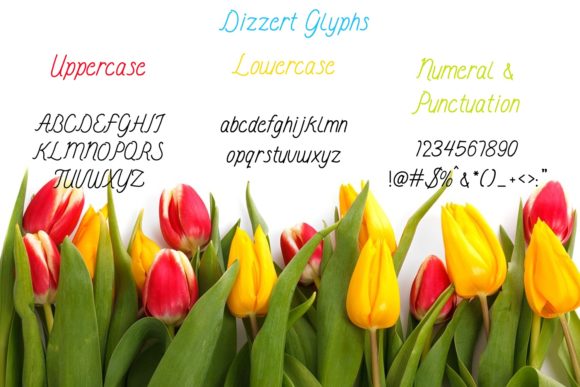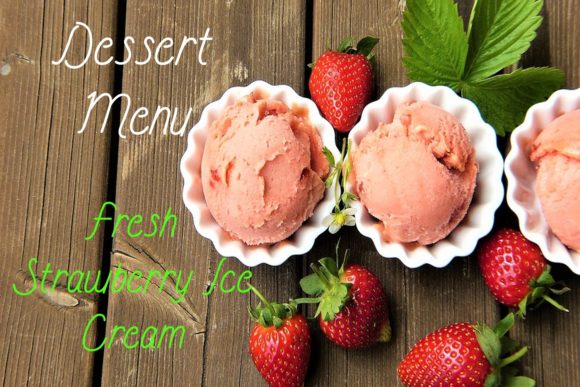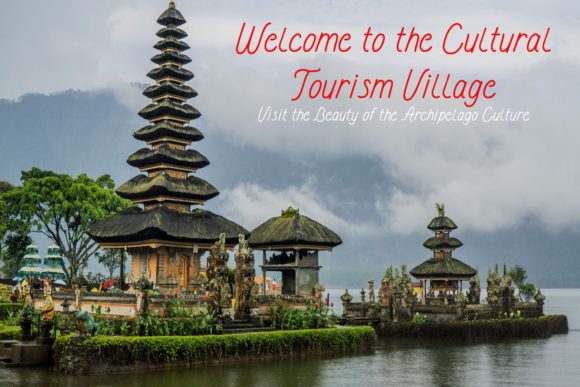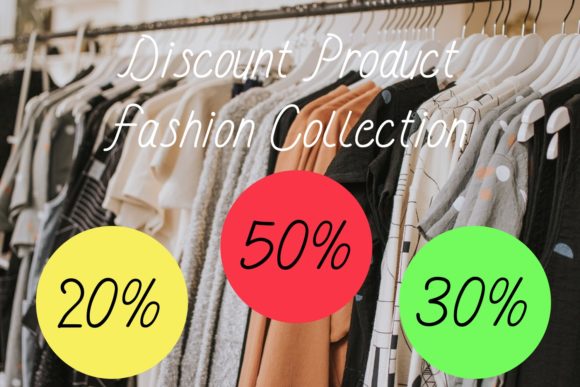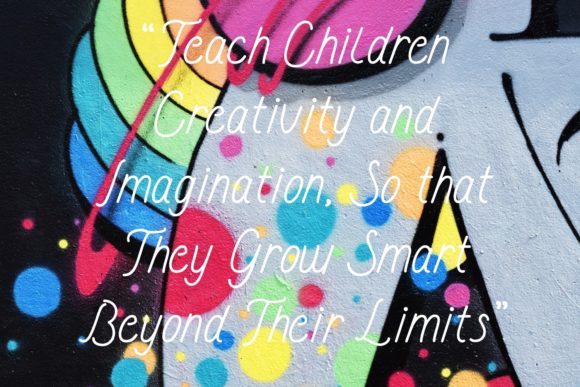
Dizzert Font
About Dizzert Font
Dizzert is an attractive and cute script font with a classic feel. Use it to add a whimsical feel to any design project.